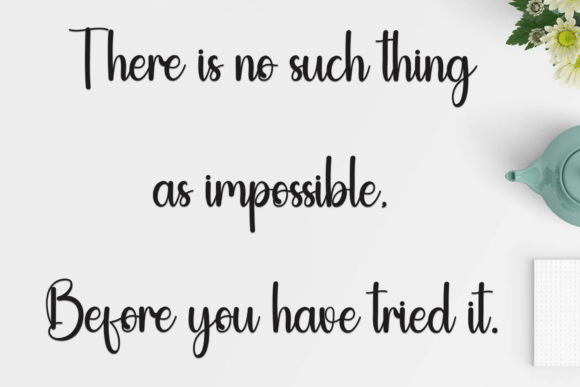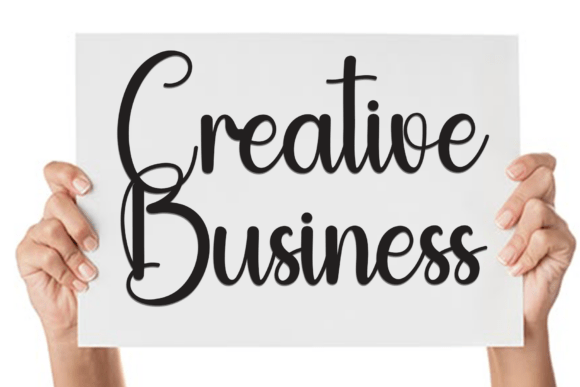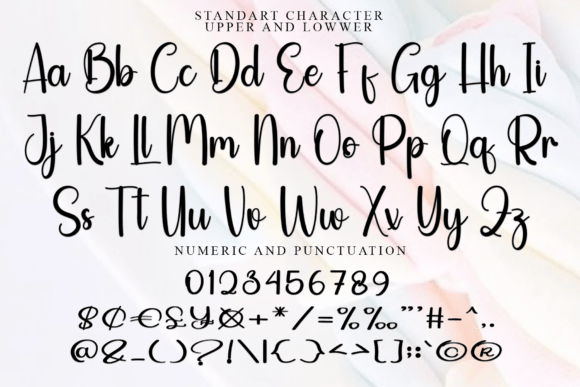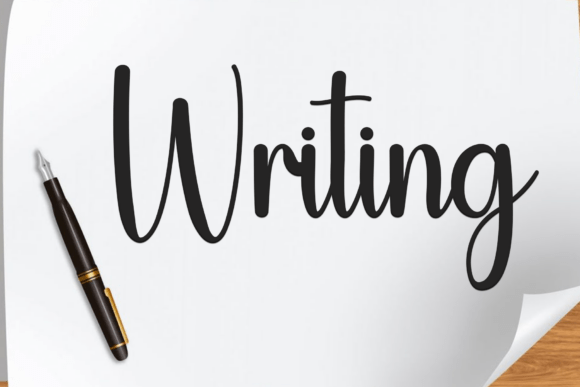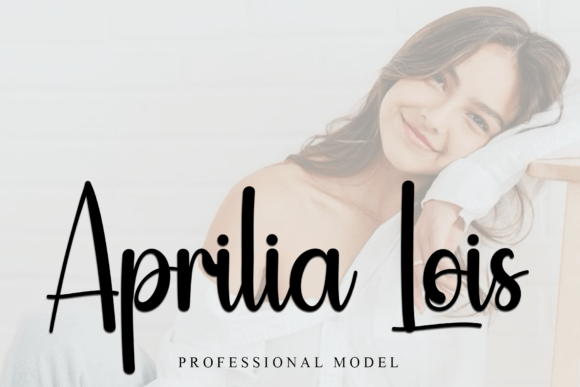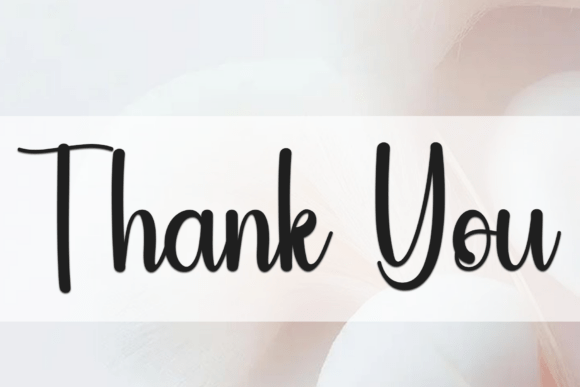
Grooming Font: Add a Touch of Holiday Magic to Your Designs
The holiday season is upon us, and with it comes the desire to create festive and merry designs that capture the spirit of the season. One of the most effective ways to add a touch of enchantment to your designs is with a beautifully crafted font, and that’s where the Grooming Font comes in. This decorative typeface is specifically designed to bring a cheerful and nostalgic ambiance to your words, making it perfect for greeting cards, gift tags, and holiday-themed projects.
What Makes Grooming Font So Special?
Grooming Font is more than just a typeface – it’s an experience. With its whimsical flair and decorative elements, it instantly evokes the feeling of the holiday season. The font’s unique design features intricate details and ornate flourishes that add a touch of magic to any design. Whether you’re creating a festive greeting card, a holiday-themed invitation, or a merry gift tag, Grooming Font is the perfect choice.
Grooming Font is a dream come true for designers and crafters who want to add a personal touch to their creations. The font’s PUA encoding makes it easy to access all of the amazing glyphs and ligatures, allowing you to create unique and eye-catching designs with ease. Whether you’re a professional designer or a hobbyist crafter, Grooming Font is the perfect tool to help you bring your creative vision to life.
Key Features of Grooming Font
- Decorative Elements: Grooming Font features intricate details and ornate flourishes that add a touch of magic to any design.
- Whimsical Flair: The font’s unique design captures the spirit of the holiday season, making it perfect for festive and merry designs.
- PUA Encoding: The font is PUA encoded, making it easy to access all of the amazing glyphs and ligatures.
- Perfect for Holiday Projects: Grooming Font is specifically designed for holiday-themed projects, including greeting cards, gift tags, and more.
Tips and Tricks for Getting the Most Out of Grooming Font
- Experiment with Different Sizes: Grooming Font looks great in a variety of sizes, so don’t be afraid to experiment to find the perfect size for your design.
- Pair with Other Fonts: Grooming Font pairs well with other fonts, so try combining it with a sans-serif font for a unique look.
- Use the Glyphs and Ligatures: The font’s glyphs and ligatures are a key part of its magic, so be sure to use them to add a touch of whimsy to your designs.
Grooming Font is a beautifully crafted typeface that’s perfect for adding a touch of holiday magic to your designs. With its decorative elements, whimsical flair, and PUA encoding, it’s the perfect choice for designers and crafters who want to create unique and eye-catching designs. Whether you’re creating a festive greeting card, a holiday-themed invitation, or a merry gift tag, Grooming Font is the perfect tool to help you bring your creative vision to life.